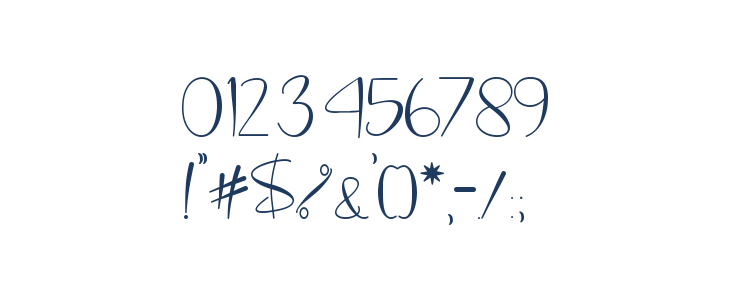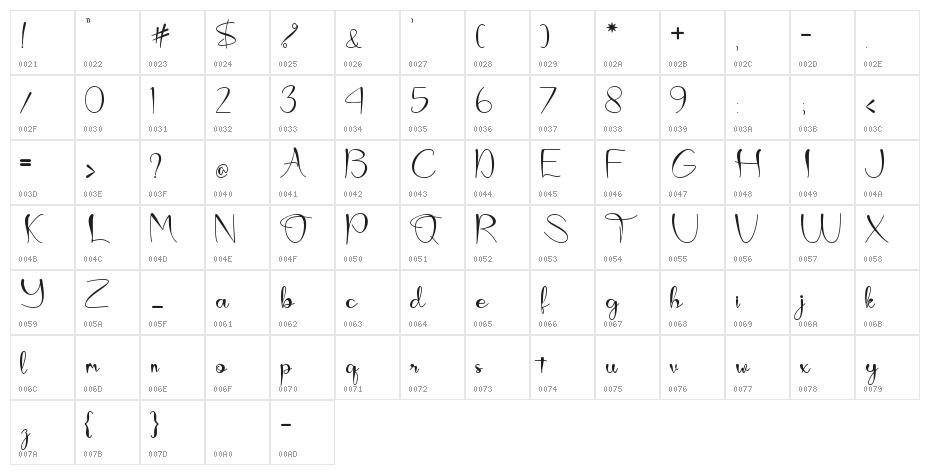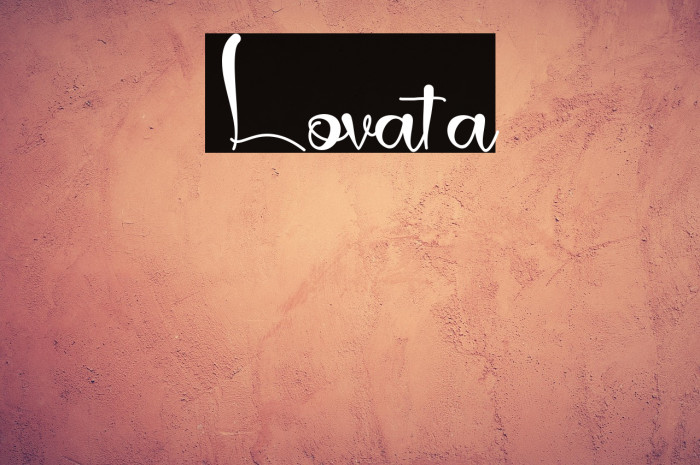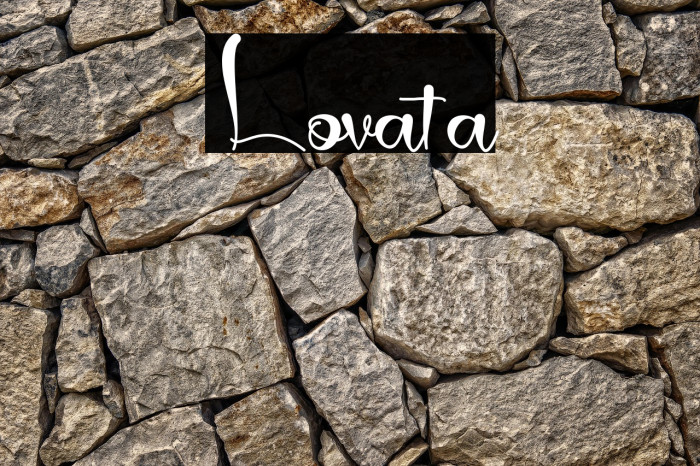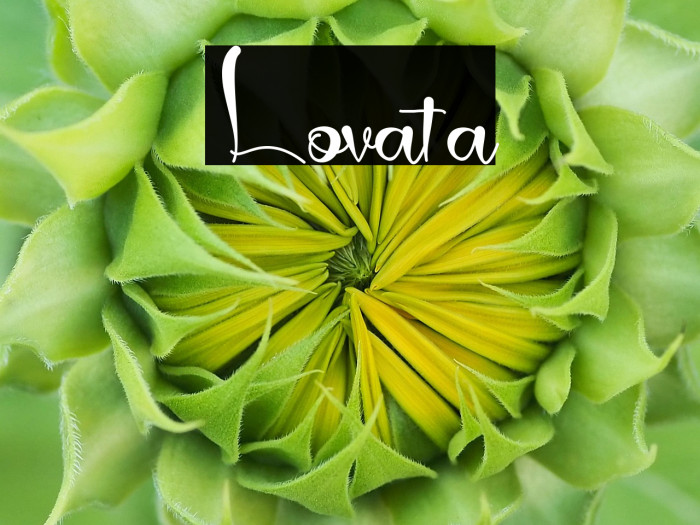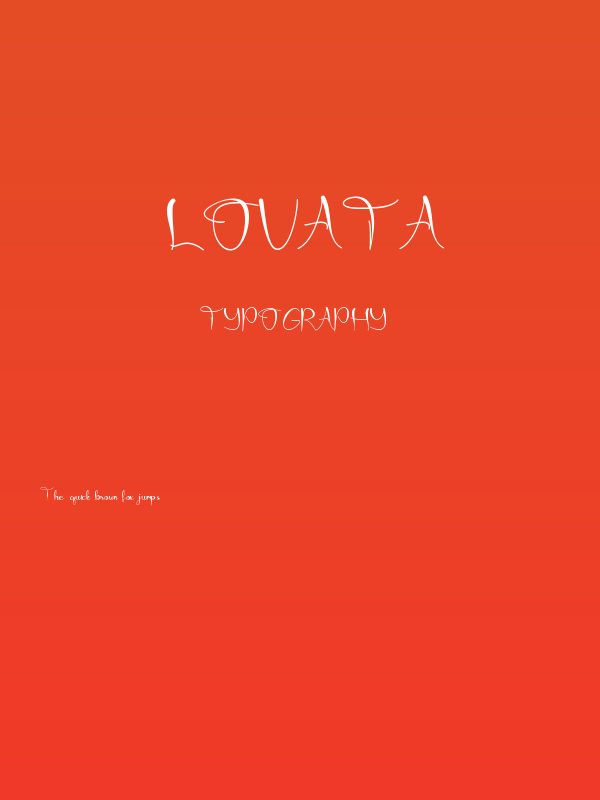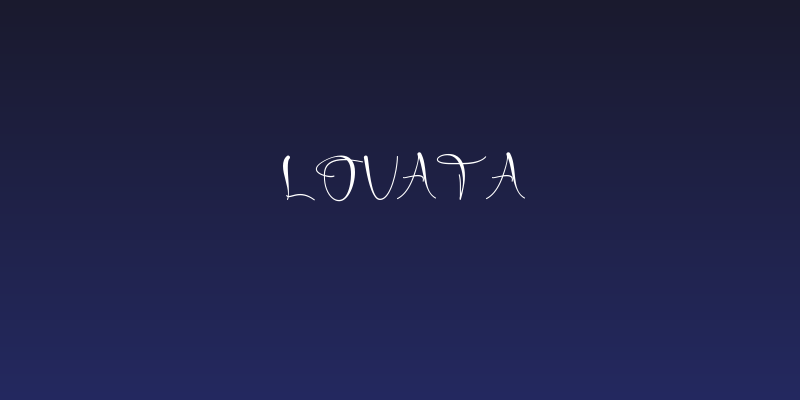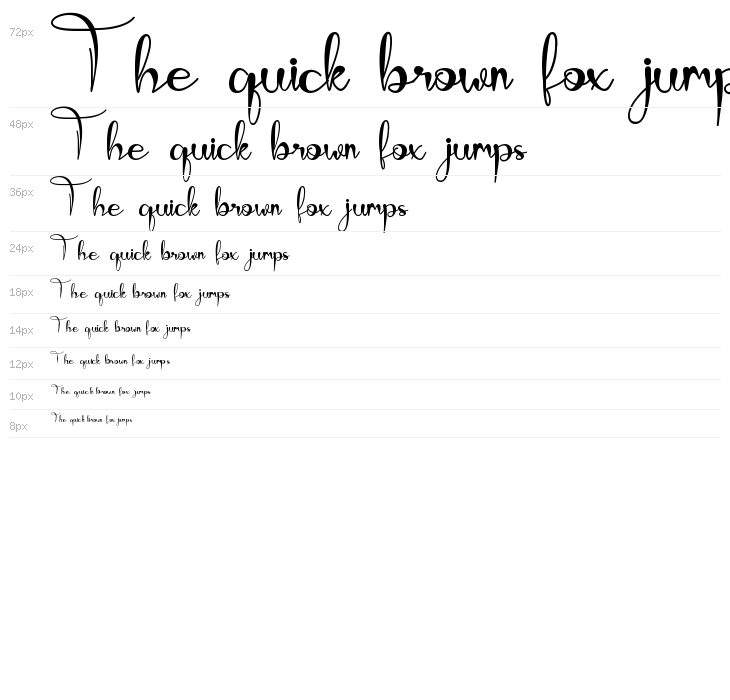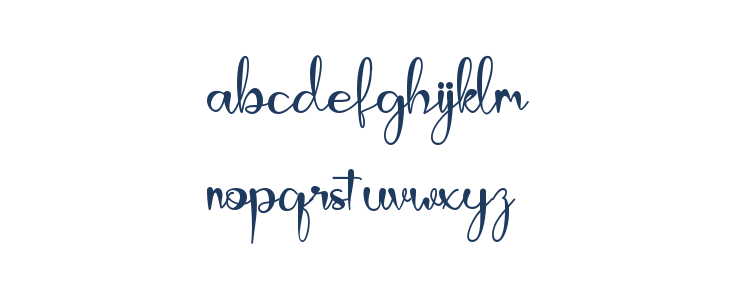
Lovata Font
Lovata Description
This font features a playful and whimsical design, characterized by its flowing, cursive-like strokes and elegant curves. The uppercase letters exhibit a unique blend of sharp and rounded edges, creating a dynamic and lively appearance. The lowercase letters maintain a consistent style with smooth connections and a slightly bouncy baseline, adding to the font's charm. Numbers are crafted with a similar flair, ensuring readability while maintaining the overall aesthetic. Special characters are thoughtfully designed to complement the letterforms, making this font versatile for various creative applications.